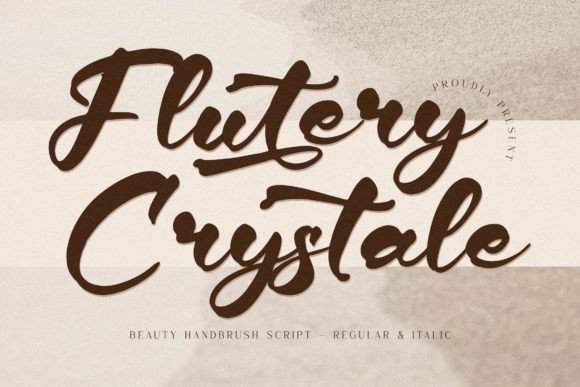
Behold, Flutery Crystale, the script font that's sure to ignite your creative spark. Its every stroke dances with elegance, leaving a trail of beauty in its wake. This handbrush script dances across the page, bringing life to your graphic design projects with its playful charm and captivating allure.
Flutery Crystale is more than just a font; it's an experience. Its fluid lines and graceful curves evoke a sense of wonder, inviting you to explore the depths of your imagination. Whether you're crafting logos, branding projects, or homeware designs, this font imbues your creations with a touch of magic.
Picture your designs adorned with Flutery Crystale's enchanting characters. Logos that shimmer with sophistication, branding that exudes personality, and homeware designs that radiate warmth and charm. This font has the power to transform the ordinary into the extraordinary.
But Flutery Crystale's magic extends beyond the digital realm. Its beauty transcends the screen, gracing mugs, posters, shopping bags, and t-shirts with its timeless elegance. Imagine your words taking flight, carried by Flutery Crystale's graceful strokes, captivating all who lay their eyes upon them.
For those with a penchant for the written word, Flutery Crystale beckons you to create book covers, name cards, and invitation cards that leave a lasting impression. Its delicate lines add a touch of refinement to your prose, making every word dance with grace.
And let's not forget the special events that deserve a touch of Flutery Crystale's enchantment. Wedding invitations, birthday cards, and holiday greetings come alive with this font, becoming cherished keepsakes that capture the essence of life's most precious moments.
With Flutery Crystale, you're not just downloading a font; you're unlocking a world of creative possibilities. Its versatility knows no bounds, adapting seamlessly to your every design endeavor. Whether you're a seasoned graphic designer or just starting your creative journey, this font will elevate your work to new heights.
So, embrace the allure of Flutery Crystale and let your creativity soar. Dive into a world where imagination reigns supreme, and bask in the brilliance of this handbrush script font. Experience the magic of Flutery Crystale today and unleash your inner artist.